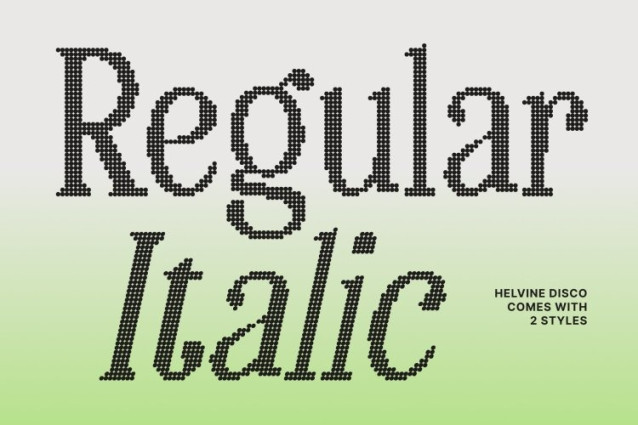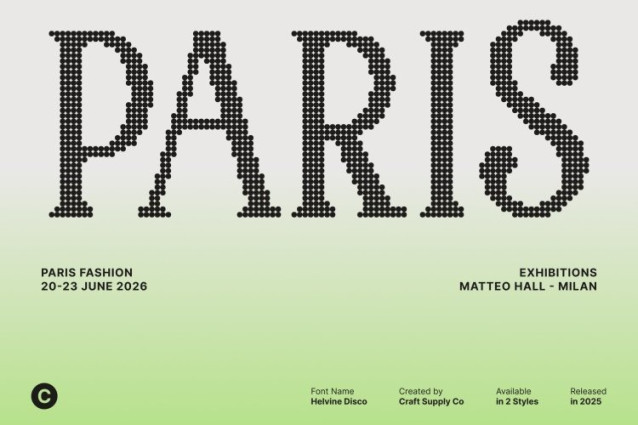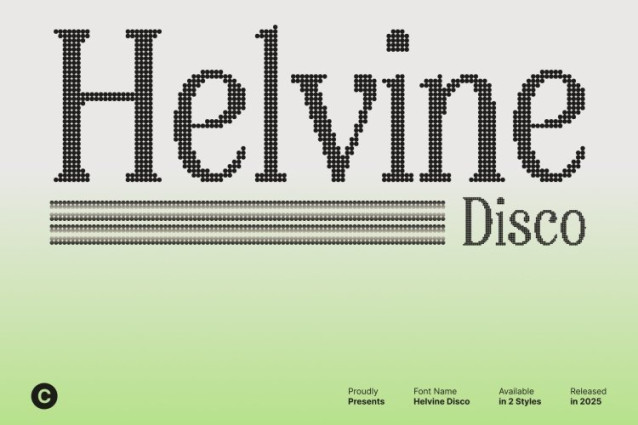
Helvine Disco Font
Helvine Disco Font This is a condensed modern serif font designed with long, slim serifs and refined contemporary shapes. Its elegant structure creates a tall, graceful silhouette that immediately feels polished and stylish. The slim proportions allow the font to deliver maximum visual impact while maintaining a sleek, sophisticated appearance perfect for modern display needs.
Disco Shimmer for a Sparkling, Dynamic Finish
What sets this font apart is its shimmering disco effect adding a radiant layer of sparkle that brings energy and motion to every letter. This glowing texture enhances the slim serif form, creating a dazzling interplay of light and shape. The shimmer adds charisma and excitement, making your typography shine with expressive flair.
Perfect for Party Graphics, Music Branding, and Retro Posters
This font thrives in bold visual applications like party graphics, music branding, nightlife promotions, and retro-inspired posters. Its condensed silhouette stands out beautifully in titles and headlines, while the disco shimmer helps capture the fun, rhythmic atmosphere of dance floors, vintage aesthetics, and vibrant musical themes.
A Contemporary Typeface with Retro Radiance
Balancing modern elegance with sparkling retro charm, offers designers a distinctive and eye-catching display option. Its slim serifs, stylish form, and lively shimmer effect make it a perfect choice for projects that aim to dazzle and captivate. With this font, your designs will glow with sophistication, rhythm, and irresistible visual energy.